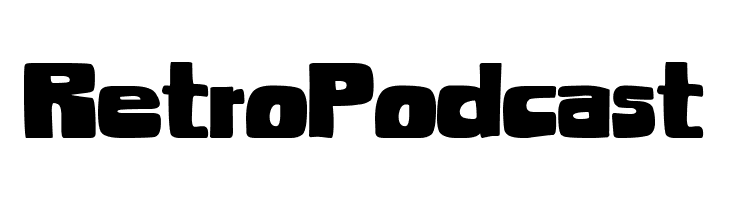
A playful and whimsical font with tall, slender uppercase letters and rounded lowercase characters.
A bold, distressed font with a grunge texture, ideal for impactful designs.
A hand-drawn, rustic font with a playful and organic style.
A playful, rounded font with a smooth, bold appearance and friendly style.
A modern, oblique font with thin lines and a dynamic, minimalist style.
A bold, angular font with a futuristic and edgy design.
A bold, outlined serif font with a modern and impactful design.
A bold, futuristic font with geometric, blocky characters and rounded corners.
A bold, fragmented, and abstract decorative font with an edgy style.